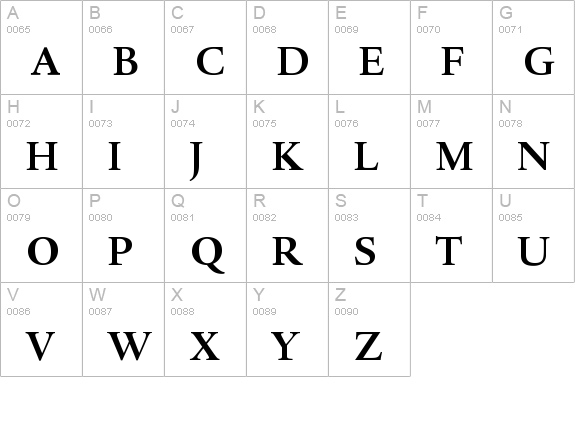
DTLHaarlemmerD-Bold is a strong, high-contrast variant in the DTLHaarlemmerD typeface family \xE2\x80\x94 well suited to headlines, attention-grabbing titles, and strong calls-to-action.
DTLHaarlemmerD-Bold is a bold and striking font that exudes confidence and authority. With its clean lines and strong presence, this font commands attention and makes a statement. Perfect for headlines, titles, and other design projects that require a bold touch, DTLHaarlemmerD-Bold is a versatile typeface that can be used in a variety of contexts. What sets DTLHaarlemmerD-Bold apart is not just its boldness and impact, but also its readability and clarity. Each character is carefully crafted to ensure legibility even at smaller sizes, making it a practical choice for both print and digital projects. And the best part? DTLHaarlemmerD-Bold is available for free download at FontsMarket.com. That's right, you can easily access this powerful font without breaking the bank. So why wait? Add DTLHaarlemmerD-Bold to your font collection today and take your designs to the next level.